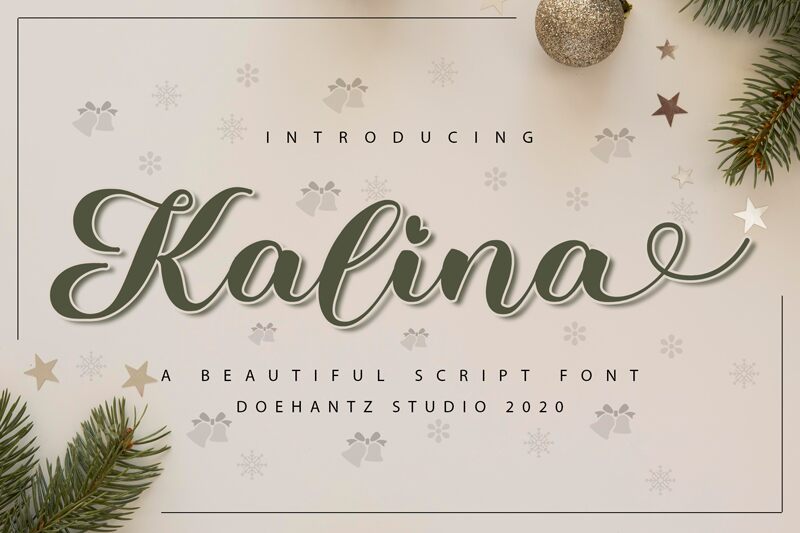
Kalina is a stunning calligraphy font designed by Abduhan Fikhri. With its bold weight and elegant style, Kalina is perfect for luxury branding projects, wedding invitations, and other upscale designs. Its flowing strokes and graceful curves add a touch of sophistication to any design, making it a popular choice among designers who want to create a memorable and timeless impression. Whether you're working on a fashion label, a beauty product, or a fine dining establishment, Kalina is sure to add a touch of class and refinement to your project.
Kalina
Doehantz Studio
Abduhan Fikhri